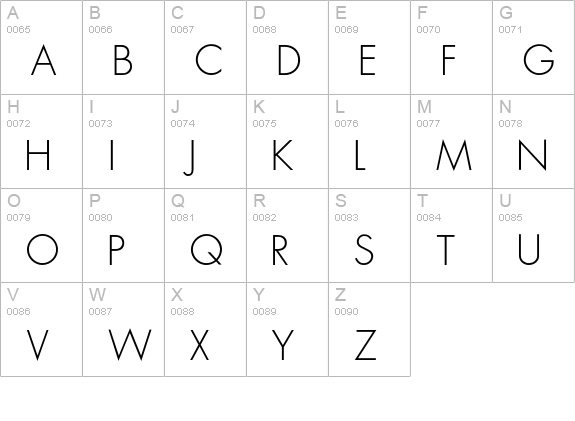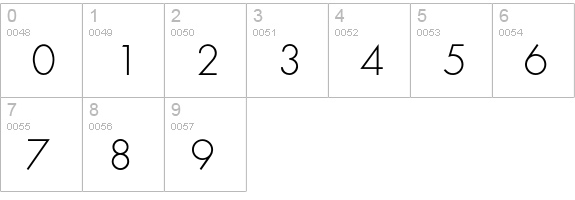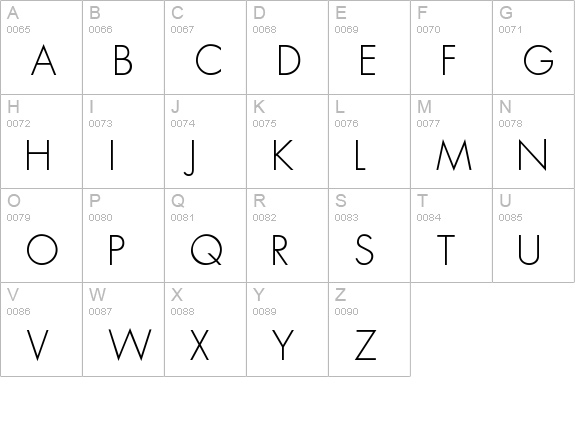
FuturaICG-Light is a refined, elegant variant in the FuturaICG typeface family \xE2\x80\x94 well suited to elegant body text, refined sub-headings, and luxury branding.
FuturaICG-Light font is a sleek and elegant typeface that exudes modernity and sophistication. Its clean lines and balanced proportions make it a versatile choice for a wide range of design projects, from branding to editorial layouts. The light weight of the font adds a sense of delicacy and refinement, making it perfect for conveying a sense of minimalism and elegance. The best part? FuturaICG-Light font is available for free download at FontsMarket.com, making it easily accessible to designers and creatives looking to enhance their projects with a touch of timeless style. With its timeless appeal and effortless readability, this font is sure to elevate any design to new heights.